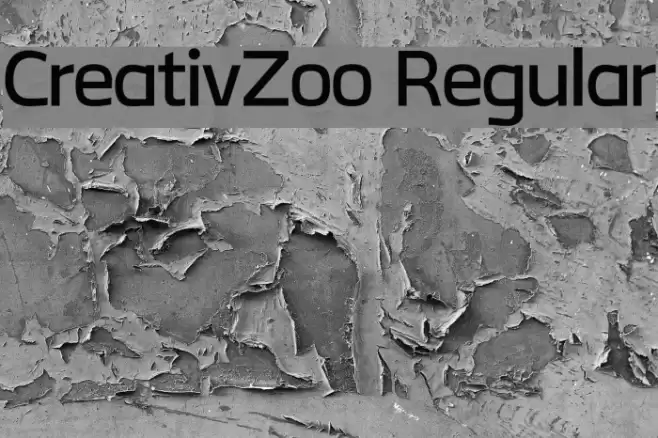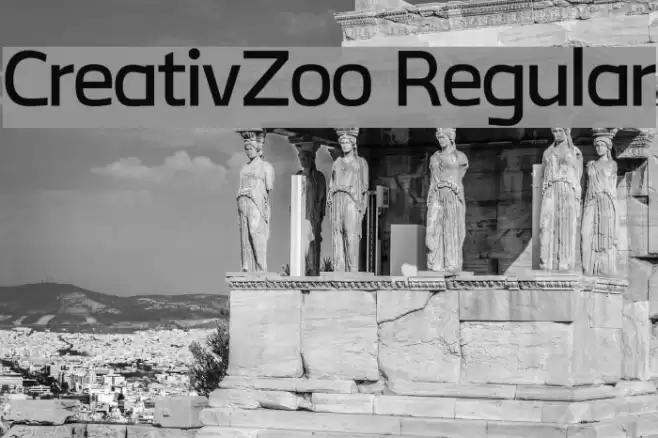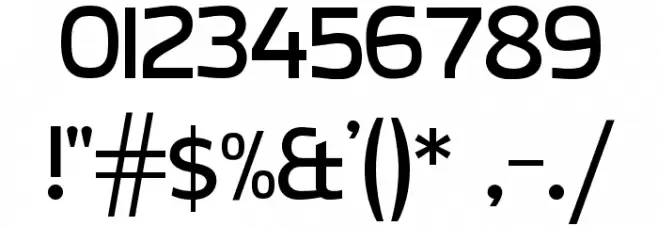
CreativZoo Regular Font
CreativZoo Regular Description
This font features a clean and modern sans-serif design with smooth curves and a uniform stroke width. The characters are well-proportioned, offering a balanced and harmonious appearance. Uppercase letters are bold and assertive, while lowercase letters maintain a friendly and approachable look. The numerals are clear and easy to read, making them suitable for various applications. Special characters are distinct and well-integrated into the overall style, ensuring versatility in design projects.
A modern sans-serif font with clean lines and balanced proportions from Uncategorized fonts.
- Proposed Projects: Ideal for branding, web design, advertising, and editorial projects where a modern and clean aesthetic is desired.